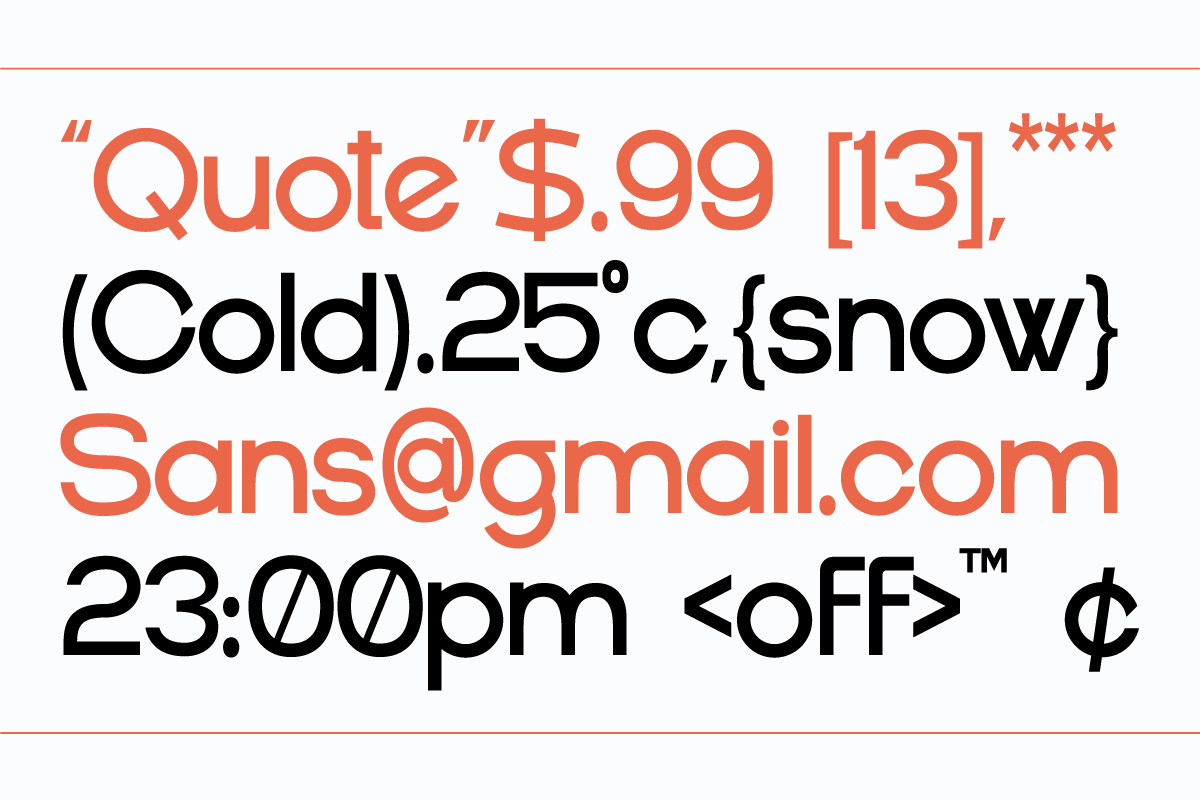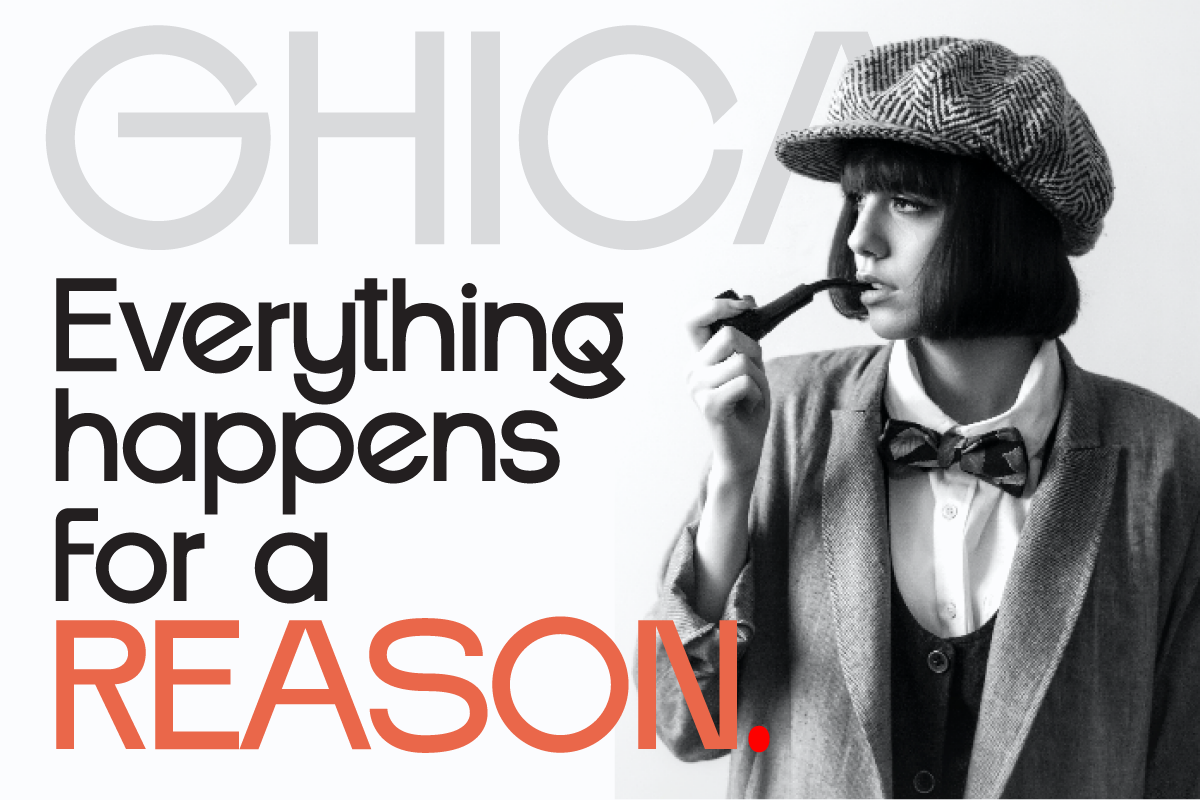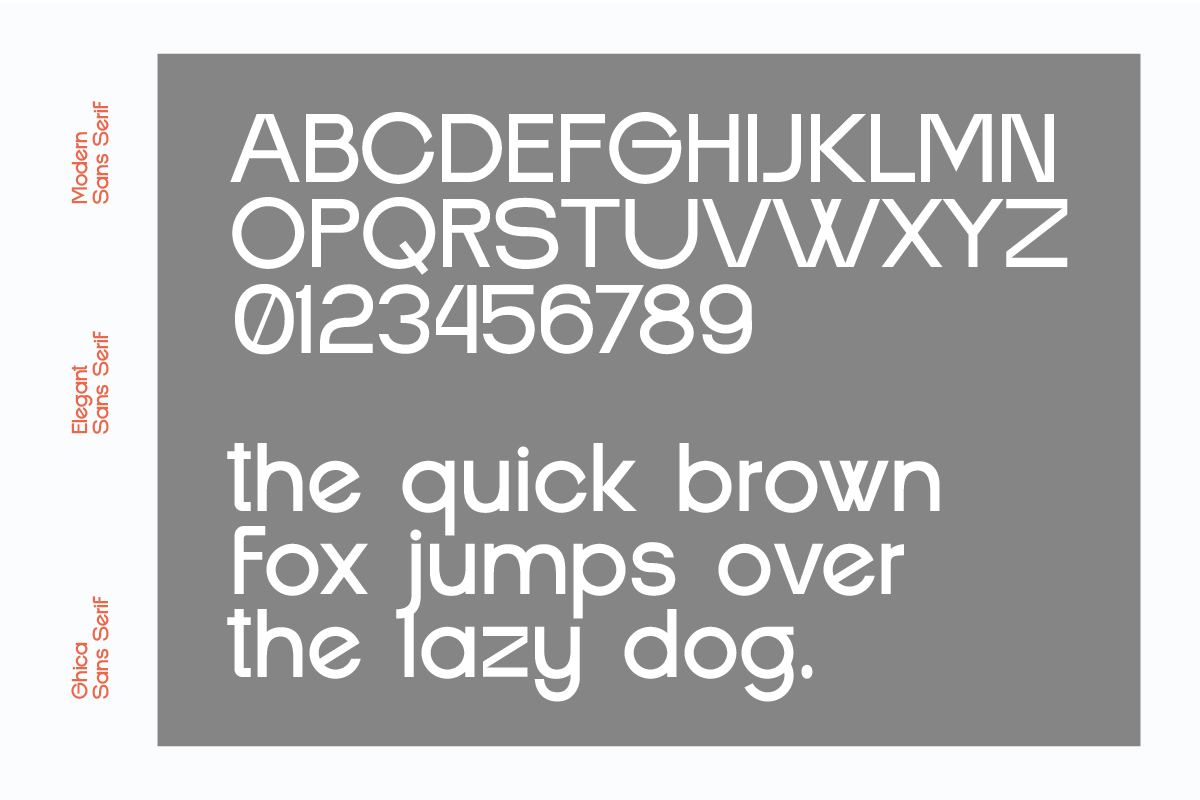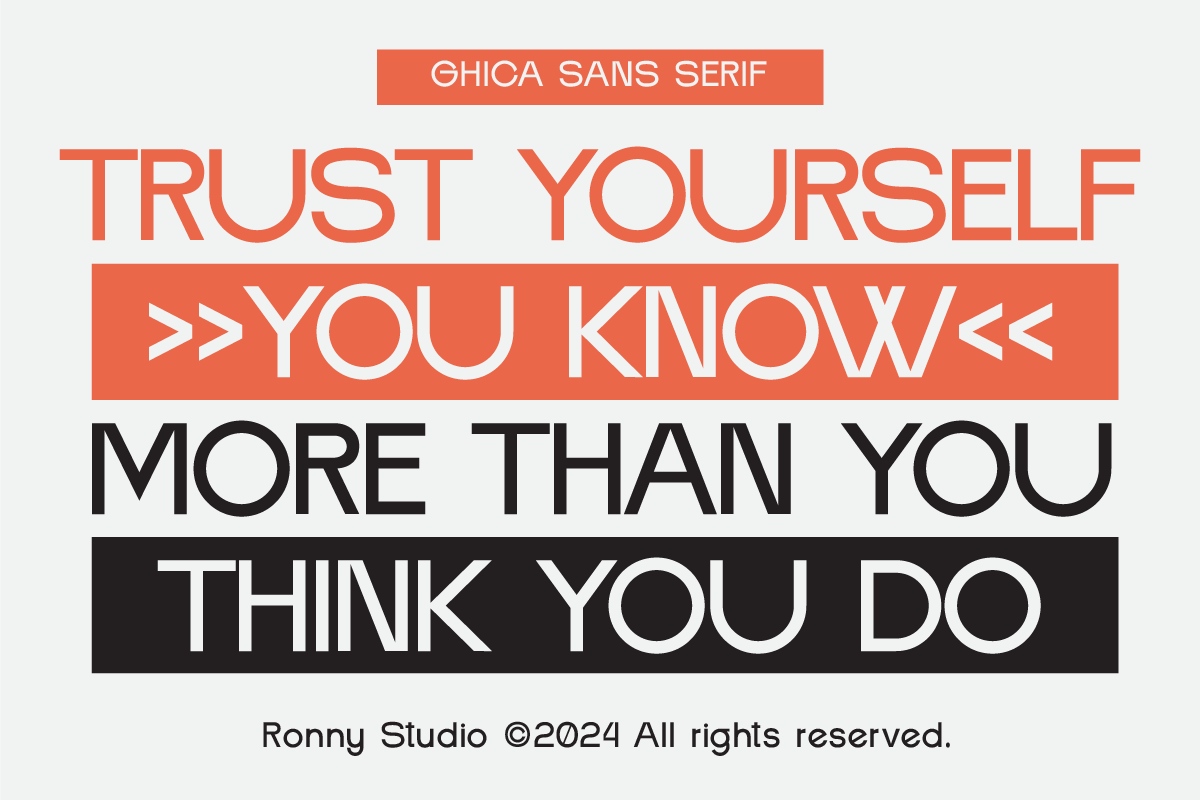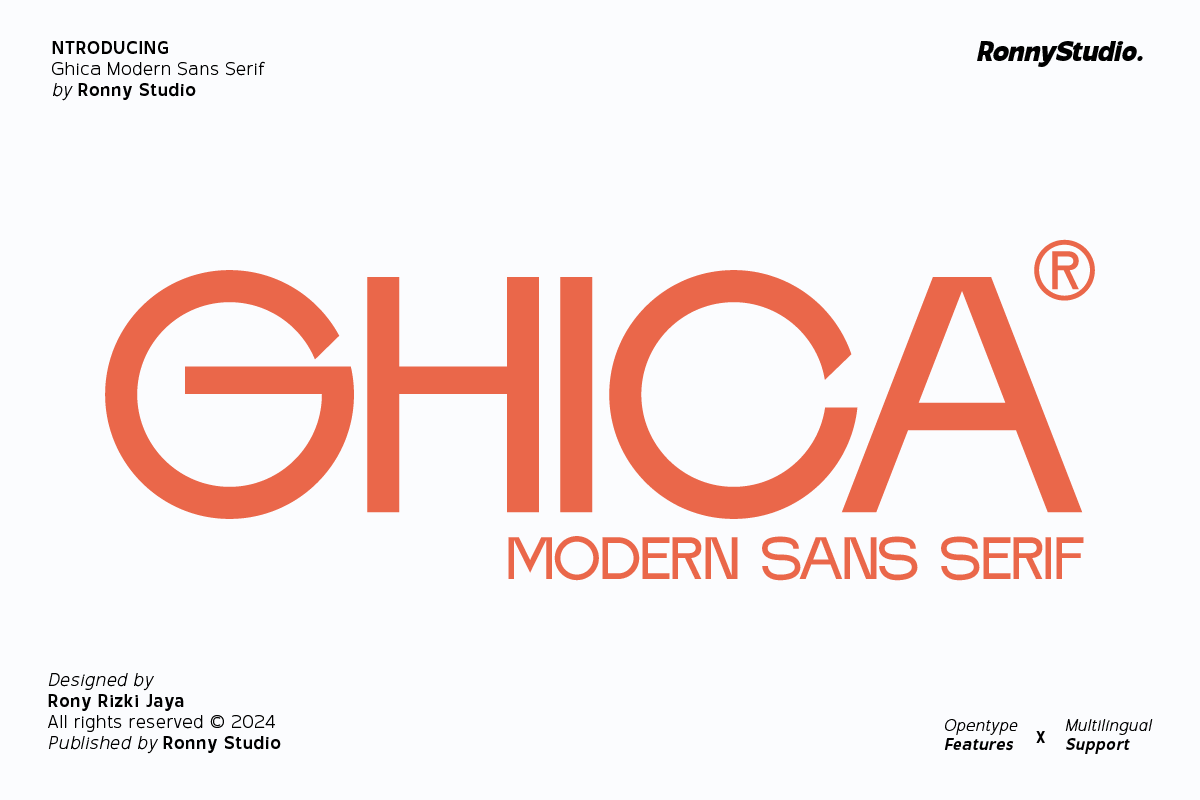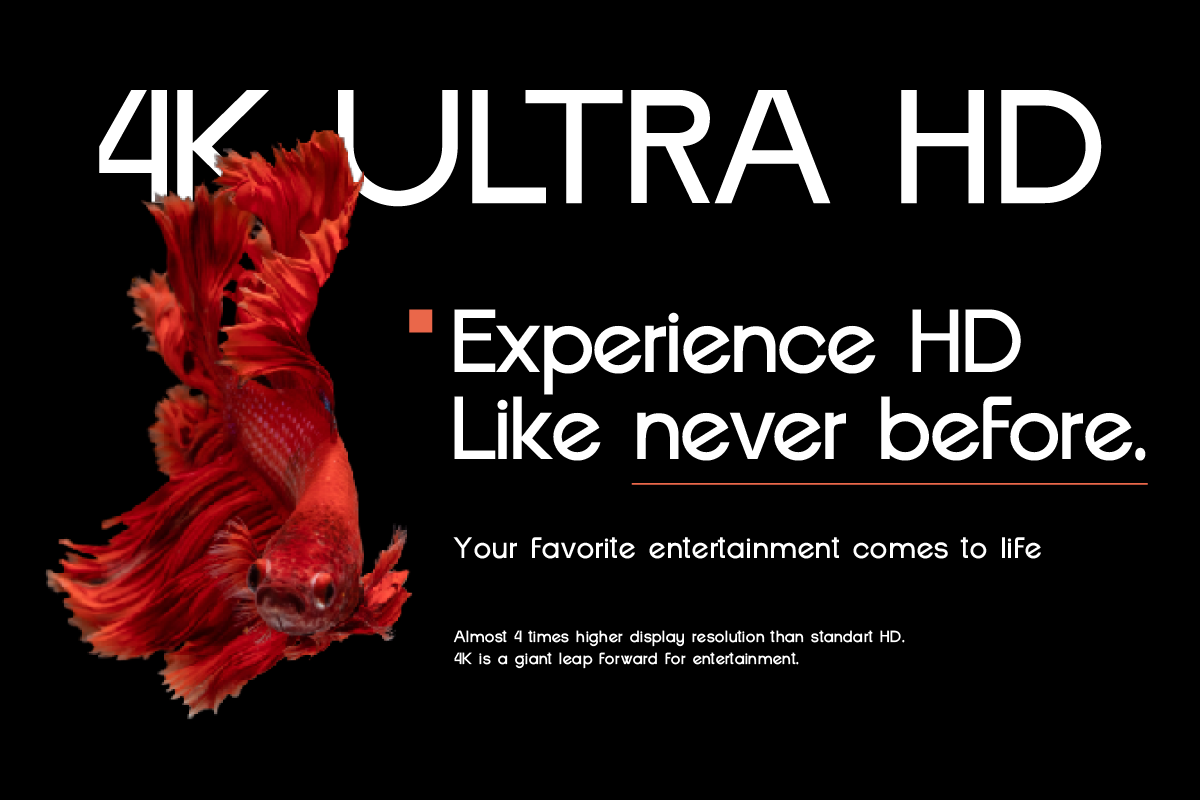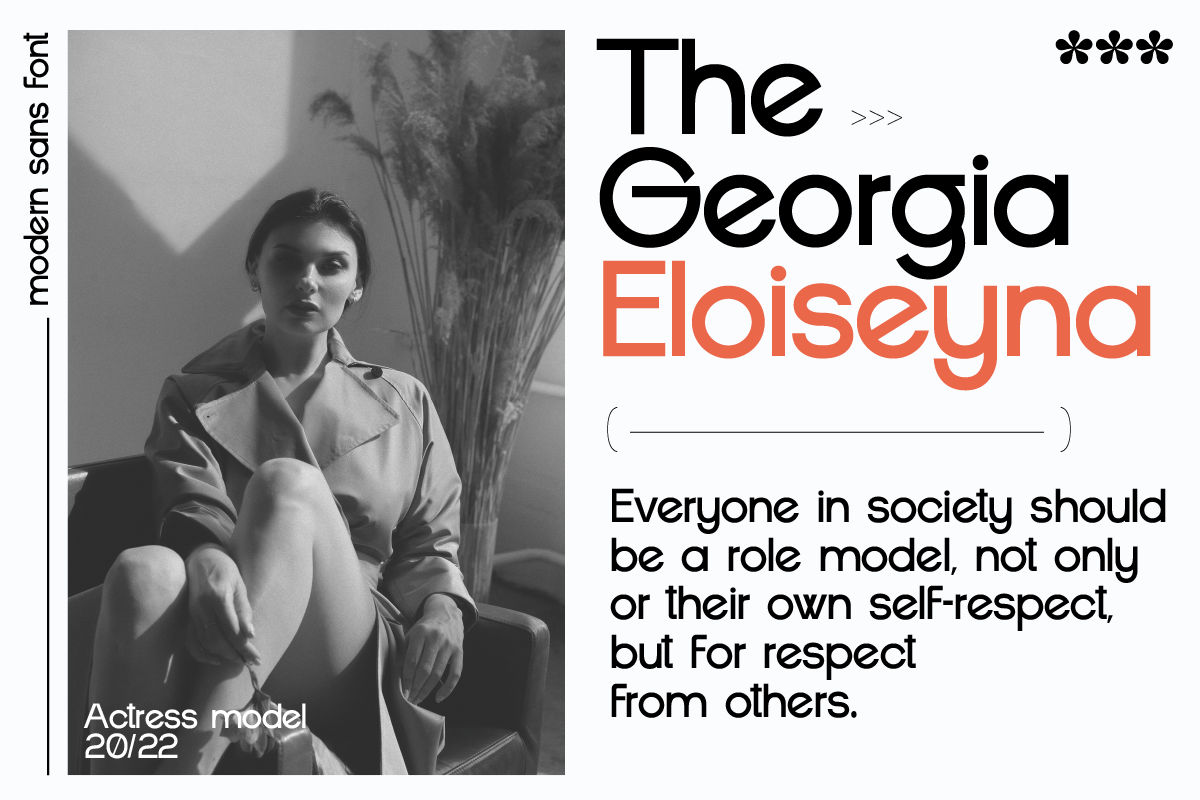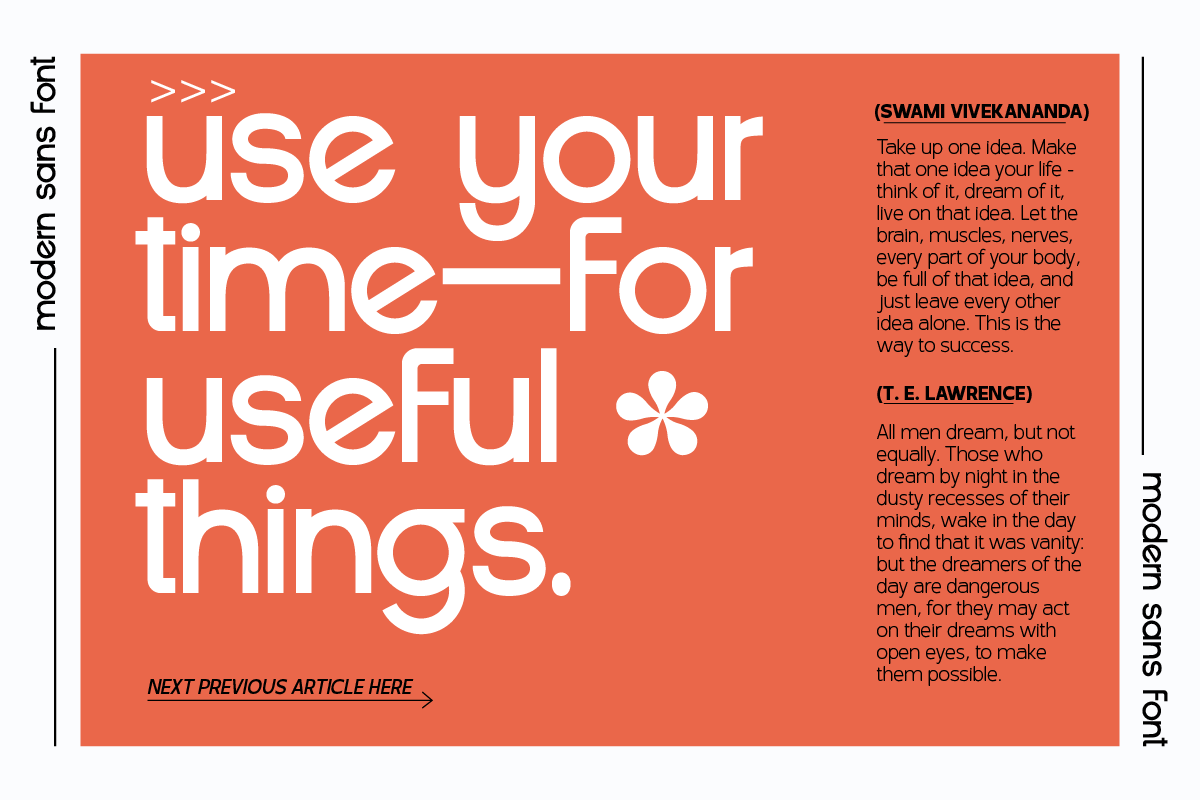
Ghica Clean & Minimalist Typeface
Ghica – A Sleek & Modern Sans Serif Font for Minimalist Designs ✨
Experience the perfect balance of modern simplicity and versatile elegance with Ghica, a sleek sans-serif font designed for branding, editorial, and UI/UX projects. Whether you're working on a logo, website, or marketing material, Ghica delivers a clean, professional aesthetic that enhances any design.
💡 Key Features:
✅ Clean & Sleek Lettering – Ideal for modern and minimalist aesthetics.
✅ Versatile Usage – Perfect for branding, packaging, websites, and social media.
✅ Professional & Elegant – Balances simplicity with sophistication.
✅ Multilingual Support – Includes a full set of characters for global use.